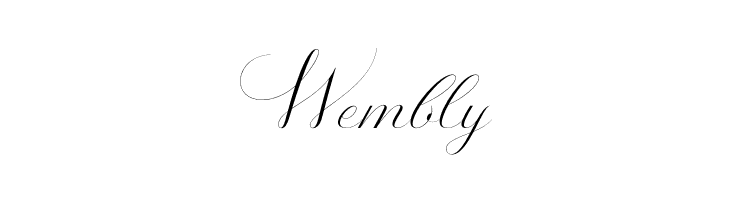
A flowing, cursive font with elegant curves and a sophisticated style.
A sophisticated and fluid script typeface with elegant curves.
A flowing, cursive script font with elegant curves and loops.
An elegant script font with flowing, interconnected letters and ornate swashes.
An elegant, cursive font with graceful, flowing strokes.
An elegant script font with flowing, interconnected letters and classic calligraphic style.
An elegant script font with flowing cursive letters and intricate swashes.
An elegant script font with flowing, cursive letters and artistic flair.
A sophisticated script font with elegant, flowing curves.
An elegant script font with flowing, ornate characters and a sophisticated style.
An elegant script font with flowing, interconnected characters and intricate swashes.
An elegant, flowing script font with a handwritten style.
A romantic and elegant script font with flowing, handwritten characteristics.